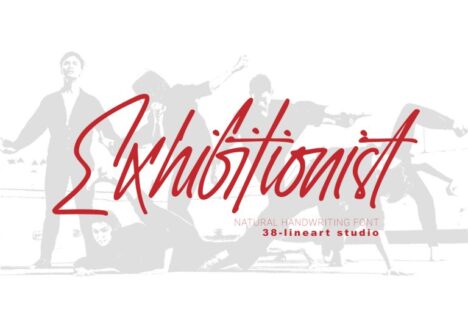
- Exhibitionist
Related to typography and art, we define exhibitionist as an innovative work that is able to invite attention.
An Exhibitionist must have a strong character, dare to appear as it is, natural, simple and modern-minded. That is what is represented in this font, a handwriting with a natural rhythm and reflects the lifestyle of urban society. We want to give a definition of exhibitionist in a positive typography frame.
This font is very simple, too much glyph will make you confused, we make a lot of glyphs but we’ve filtered out only selected glyphs, so all you do is activate the ligature on your software and feel the interesting handwriting rhythm.